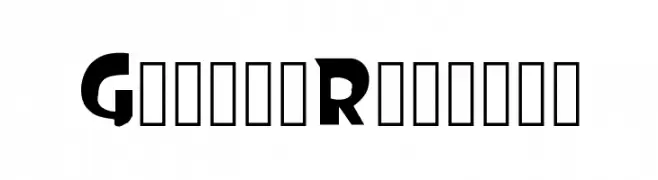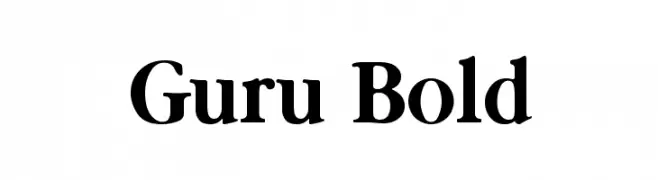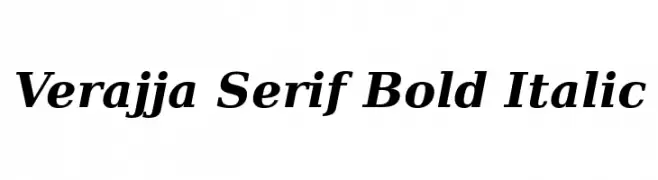
A bold, classic serif font with strong strokes and elegant curves.
A bold, classic serif font with strong strokes and elegant serifs.
A serif font with architectural pediment designs, exuding classical elegance.
A bold, classic serif font with strong strokes and traditional letterforms.
A bold, italic serif font with a classic and elegant style.
A bold serif font with classic, authoritative strokes and balanced proportions.